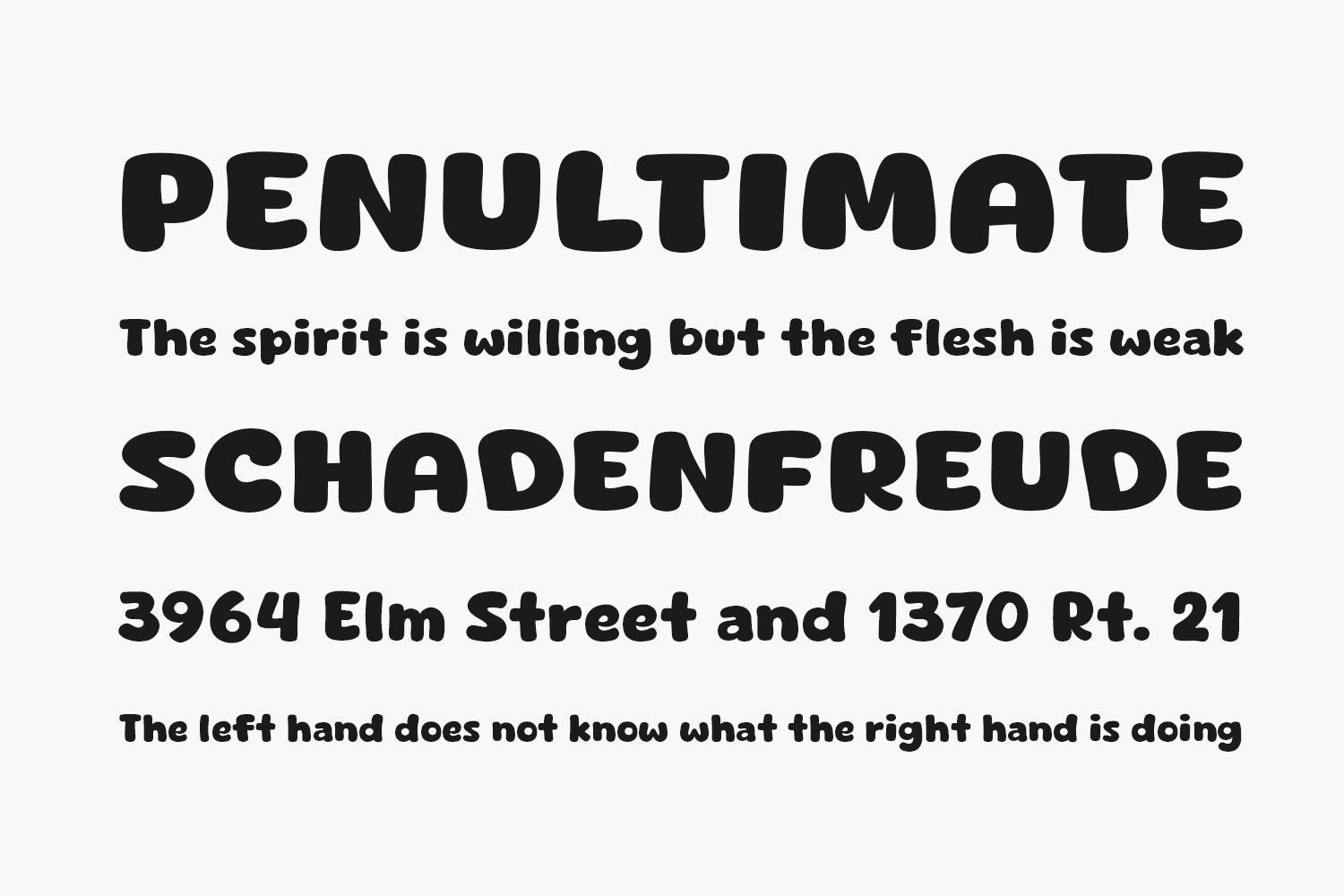
Cute Dino Free Font – Playful Display Typeface for Kids & Fun Designs
Cute Dino is a charming and fun display font designed by Khurasan to bring joy and creativity to your design projects. With its rounded edges, playful shapes, and friendly appearance, this free decorative typeface works perfectly for crafting adorable logos, children’s books, greeting cards, stickers, and more. Available in OTF format with support for Latin characters — ideal for designers looking to add a cute and lively tone to branding, packaging, or digital graphics.
Why Choose Cute Dino?
- Playful Style: Rounded letterforms and soft curves create a lighthearted, kid-friendly look.
- Ideal for Children’s Projects: Perfect for books, toys, nursery design, or educational materials needing a warm tone.
Where to Use Cute Dino?
Cute Dino shines across a variety of creative applications:
- Logos & Branding: Adds warmth to brand identities for toy brands, baby stores, or cartoon studios.
- Kids’ Books & Illustrations: Perfect for story titles, character names, or illustrations that need a fun and friendly feel.
- Greeting Cards: Brings charm to birthday cards, thank-you notes, or handmade gift tags.
- Packaging Design: Great for product labels on stuffed animals, mugs, notebooks, or candy wrappers.
- Social Media Graphics: Creates bold text overlays for Instagram Stories, Pinterest pins, or TikTok videos with a whimsical vibe.
Design Tips with Cute Dino